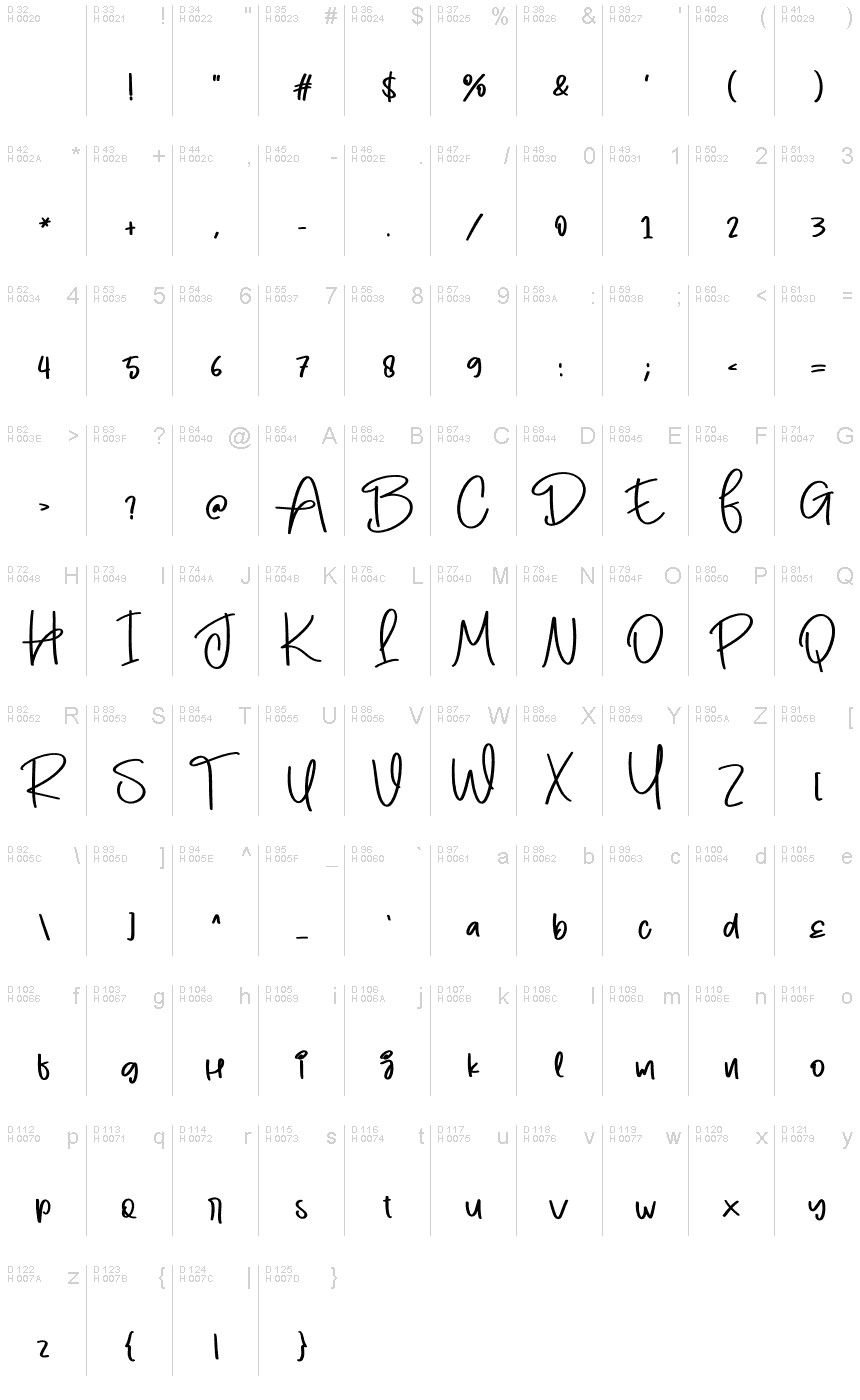
Wine
The Wine font, designed by Scratchones, brings a touch of elegance and sophistication with its light handwritten style.
Its delicate strokes and flowing curves are perfect for wedding invitations, greeting cards, and romantic-themed projects. Enhance your branding with its graceful appearance on logos or packaging. For fashion magazines or blog headers, the Wine font adds a refined yet approachable vibe. Its versatility extends to food blogs, creating a warm and inviting atmosphere.
With the Wine font's gentle demeanor, it effortlessly complements any project that desires an air of sophistication.
Its delicate strokes and flowing curves are perfect for wedding invitations, greeting cards, and romantic-themed projects. Enhance your branding with its graceful appearance on logos or packaging. For fashion magazines or blog headers, the Wine font adds a refined yet approachable vibe. Its versatility extends to food blogs, creating a warm and inviting atmosphere.
With the Wine font's gentle demeanor, it effortlessly complements any project that desires an air of sophistication.